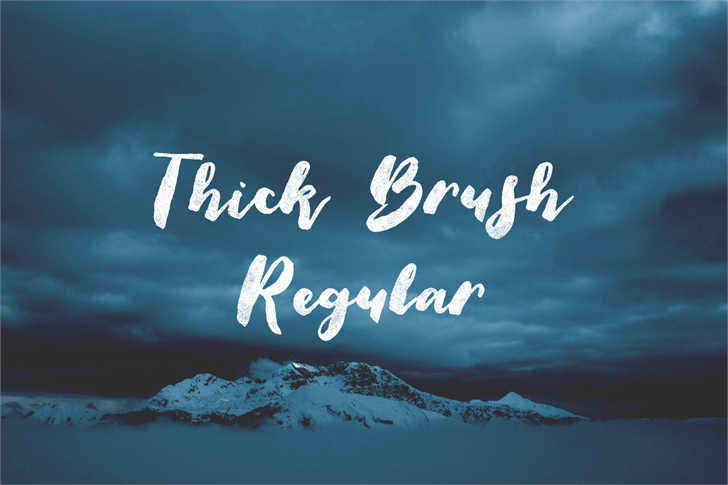
Free Thick Brush Font
Today we're glad to feature this free thick brush font. Download this free typeface from the original source of Font Space. Easily amaze your audience with this fancy font and make your graphic designs pop up from the crowd.